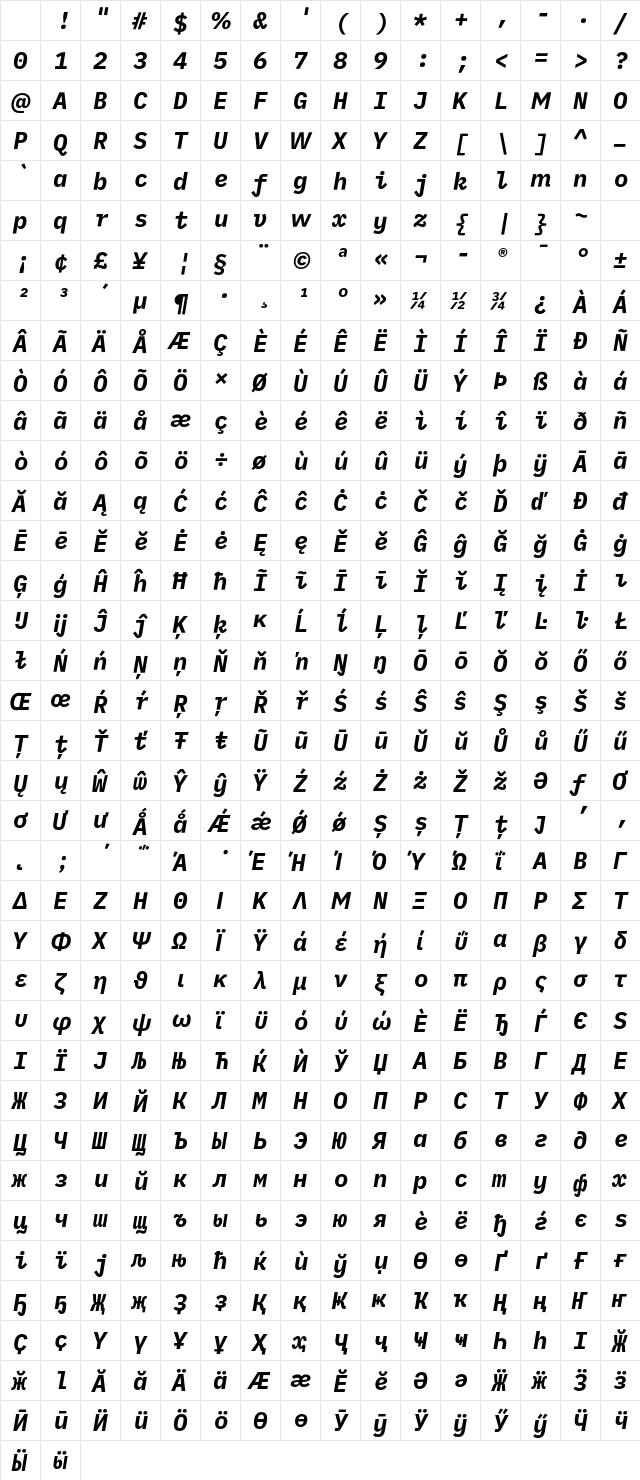
iMWritingDuospace Nerd Font Italic
Foundry: Bold Monday
Designer: Mike Abbink, Bold Monday, modified by Oliver Reichenstein
Design Context for iMWritingDuospace Nerd Font
iMWritingDuospace Nerd Font is a composed and adaptable typeface that performs quietly and consistently across a wide range of design contexts. The slanted form adds forward momentum and visual energy.
Pro Tip: Use iMWritingDuospace Nerd Font for emphasis, pull quotes, and subheadings where its slanted energy can add rhythm to the layout.
Who designed the iMWritingDuospace Nerd Font Italic font?